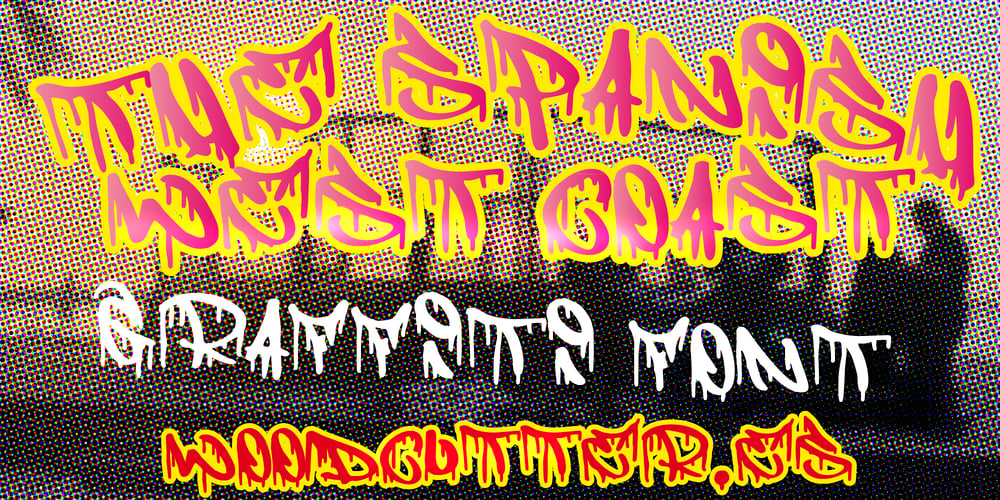
The Spanish West Coast
The Spanish West Coast font
The Spanish West Coast Font Family was designed by Jordi Manero and published by Woodcutter. The Spanish West Coast contains 1 styles and family package options. “Spanish West Coat” is an uppercase font that captures the dynamic style of graffiti tags, featuring a distinctive dripping paint effect. The letters flow with a fluid, street-inspired energy, evoking the spontaneity and authenticity of urban art. Each stroke mimics the quick, decisive brushwork of a graffiti artist, while the dripping paint adds an element of intentional messiness. Perfect for projects seeking a rebellious and energetic aesthetic, this font is ideal for posters, album covers, and any design that needs a strong, urban visual impact.